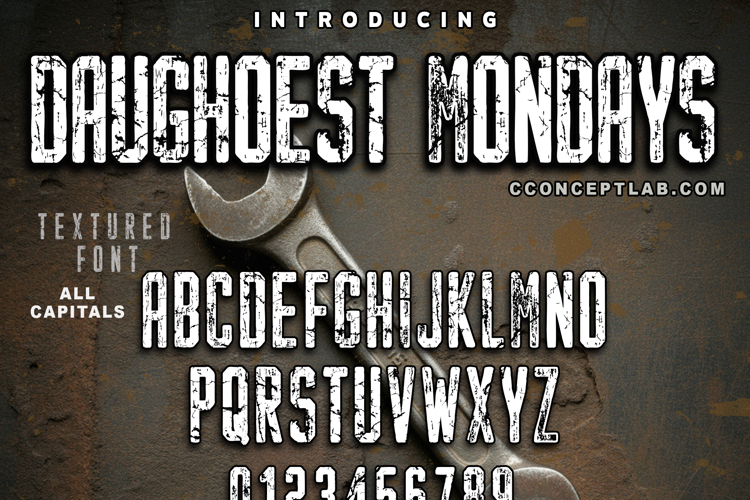
DAUGHOEST MONDAYS Font
DAUGHOEST MONDAYS
- Bold distressed font perfect on your school projects, university covers, etc.
- Blackletter theme font for sports branding, website, mobile app etc.